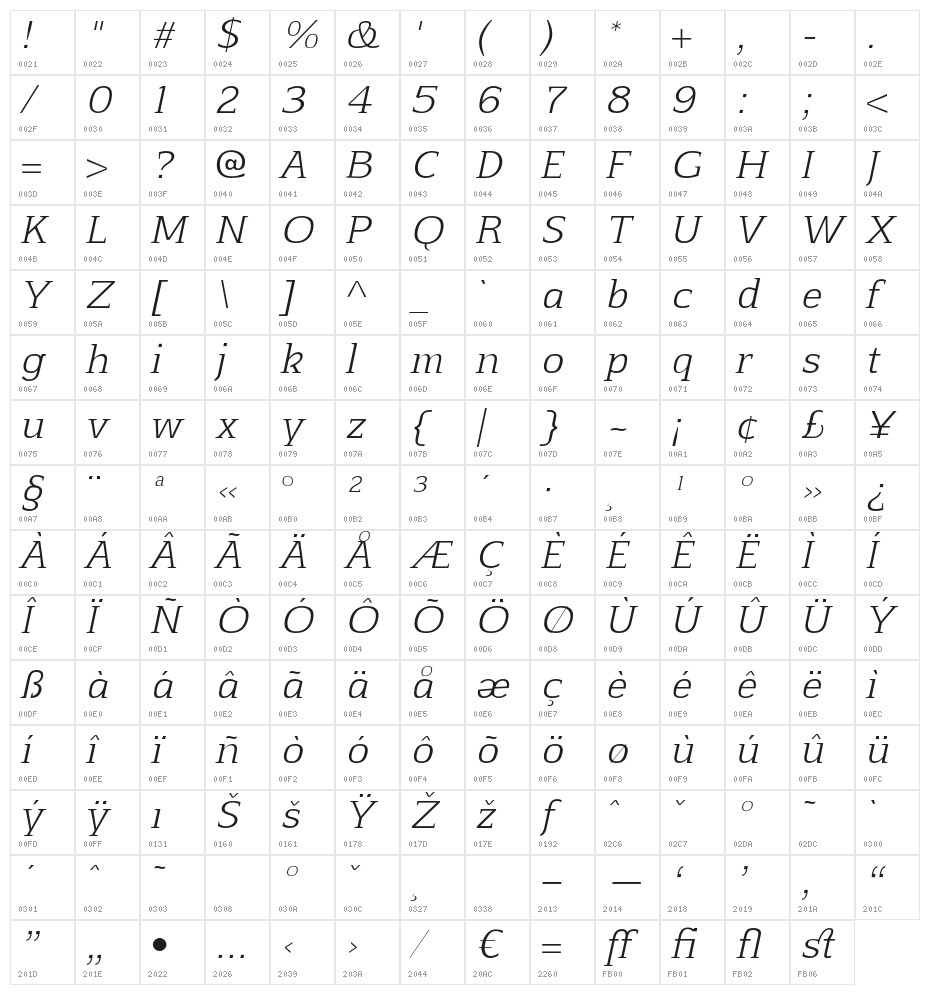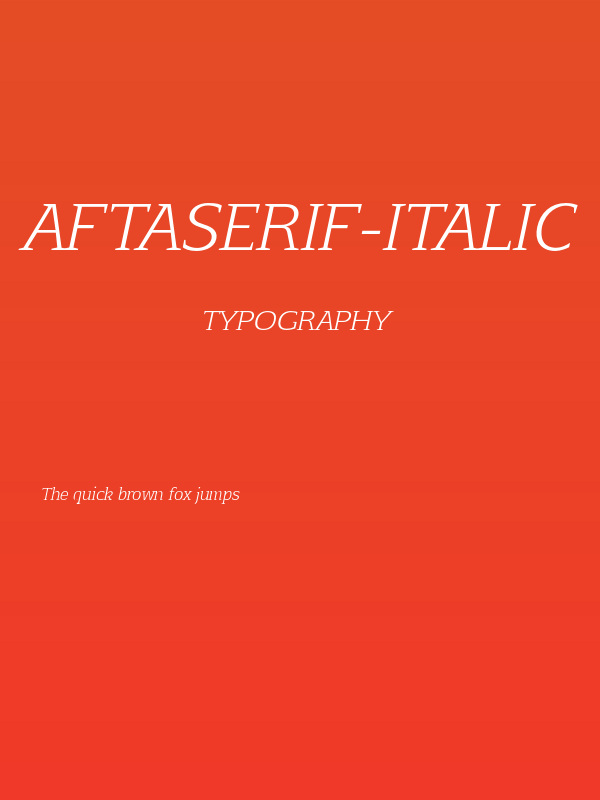
Aftaserif-Italic Font
Aftaserif-Italic Description
This elegant serif font features a classic italic style, characterized by its graceful curves and refined serifs. The letters are slightly slanted, giving a sense of motion and sophistication. The uppercase letters are tall and stately, while the lowercase letters maintain a consistent flow with smooth transitions between strokes. The numerals are clear and distinct, matching the overall aesthetic of the font. Special characters are well-integrated, maintaining the font's cohesive appearance. This font's timeless elegance makes it suitable for a variety of formal and creative applications.